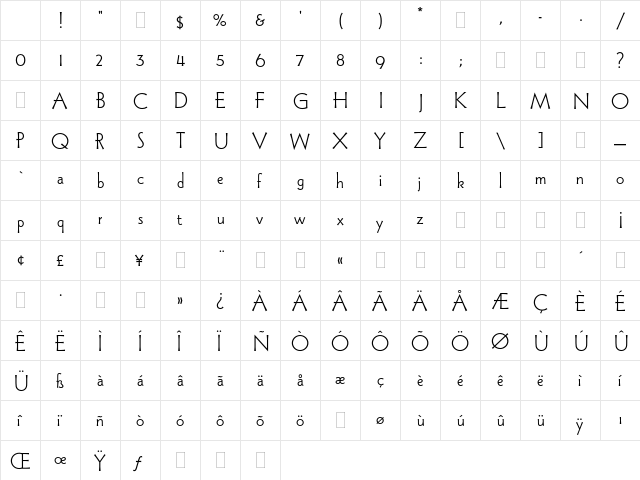
Complete Wade Sans Light Plain glyph index. Displaying only characters natively supported by Wade Sans Light Plain font.
Wade Sans Light is a composed and adaptable typeface that performs quietly and consistently across a wide range of design contexts. Its slender proportions lend an understated elegance to any composition.